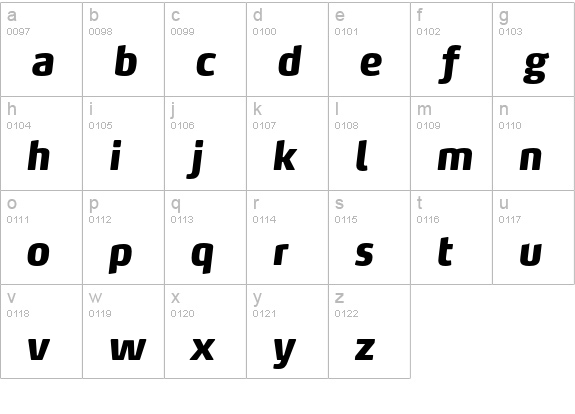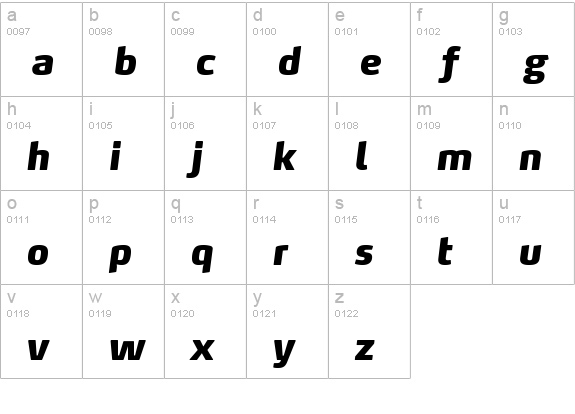
Max-BlackItalic font is a bold and stylish typeface that exudes sophistication and modernity. Its sleek and elegant design makes it perfect for adding a touch of class to any project. The italicized version of the Max-Black font adds a sense of dynamism and flair, making it ideal for headlines, titles, and branding materials. Best of all, Max-BlackItalic font is available for free download at FontsMarket.com. This means that you can easily access this stunning font and use it in your designs without any cost. Don't miss out on the opportunity to enhance your projects with this versatile and eye-catching font. Download Max-BlackItalic today and elevate your design game to the next level.